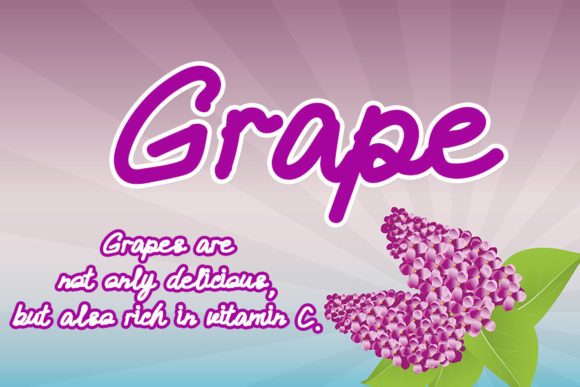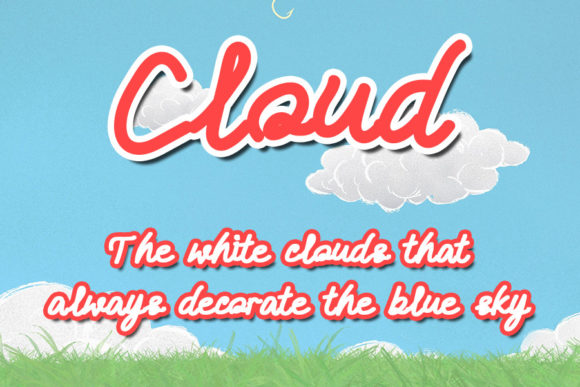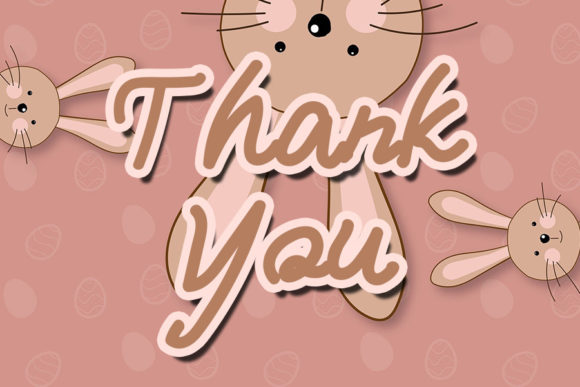
Introducing Happy Monday Font: Elevate Your Designs with Elegance and Sophistication
Are you tired of using the same old fonts for your designs? Look no further! Happy Monday Font is a beautiful, delicate, and flowing script font that is sure to add a touch of elegance and sophistication to your work. With its classy, modern look, this font is perfect for designers and crafters who want to create stunning logos, branding, invitations, stationery, wedding designs, social media posts, and more!
What Makes Happy Monday Font Special?
Happy Monday Font is a unique and versatile font that offers a range of benefits, including:
- Delicate and Flowing Script: Happy Monday Font features a beautiful, flowing script that is perfect for creating elegant and sophisticated designs.
- Classy and Modern Look: This font has a classy, modern look that is sure to impress your clients and audience.
- Highly Versatile: Happy Monday Font can be used for a wide range of design projects, including logos, branding, invitations, stationery, wedding designs, social media posts, and more.
- Easy to Read: Despite its elegant and cursive nature, Happy Monday Font is easy to read, making it perfect for body text and headlines.
Use Happy Monday Font for Your Designs
Happy Monday Font is perfect for a wide range of design projects, including:
- Logos and Branding: Create a stunning logo for your business or brand with Happy Monday Font.
- Invitations and Stationery: Add a touch of elegance to your invitations, greeting cards, and stationery with this beautiful font.
- Wedding Designs: Make your wedding designs, such as wedding invitations, programs, and place cards, truly special with Happy Monday Font.
- Social Media Posts: Elevate your social media posts with Happy Monday Font and make them stand out from the crowd.
Why Designers and Crafters Love Happy Monday Font
Designers and crafters love Happy Monday Font for several reasons:
- Unique and Creative: Happy Monday Font offers a unique and creative way to express yourself and showcase your designs.
- Time-Saving: With Happy Monday Font, you can create stunning designs in no time, saving you time and effort.
- High-Quality: This font is designed with high-quality and precision, ensuring that your designs look professional and polished.
In conclusion, Happy Monday Font is a delicate and flowing script font that offers a classy, elegant, and modern look. With its versatility, ease of use, and high-quality design, this font is perfect for designers and crafters who want to create stunning designs for a wide range of projects. So why wait? Get Happy Monday Font today and take your designs to the next level!
| Font Name | Happy Monday Font |
| Author | Slenting Art |